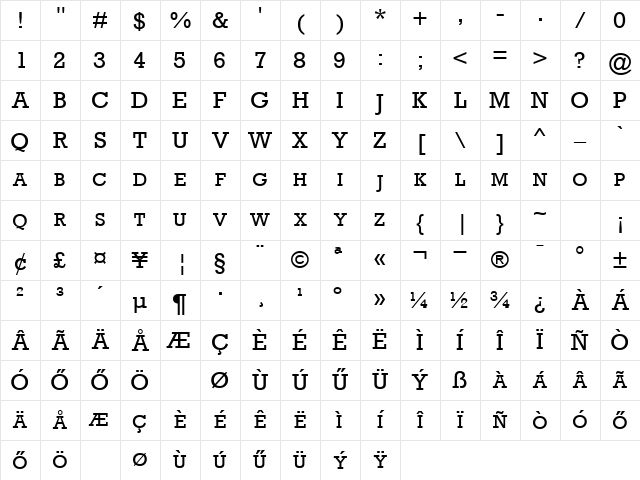
Complete Hu_ShakewellExpert Regular glyph index. Displaying only characters natively supported by Hu_ShakewellExpert Regular font.
Hu_ShakewellExpert is a composed and adaptable typeface that performs quietly and consistently across a wide range of design contexts.